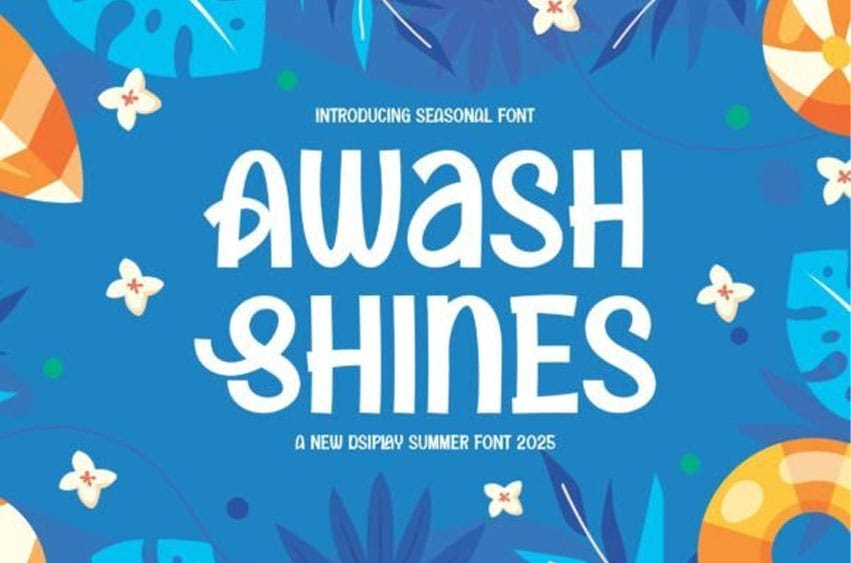
Awash Shines Font is a cheerful and bold summer display font, perfect for beach themes, playful graphics, or seasonal product packaging.
Its hand-drawn feel and friendly curves give off warmth, fun, and casual charm.